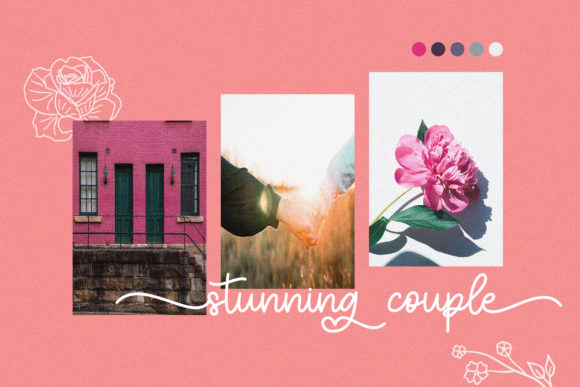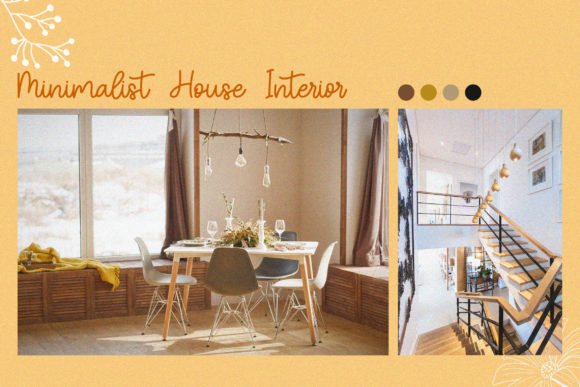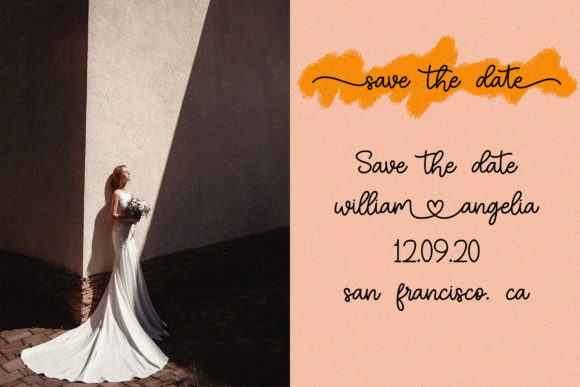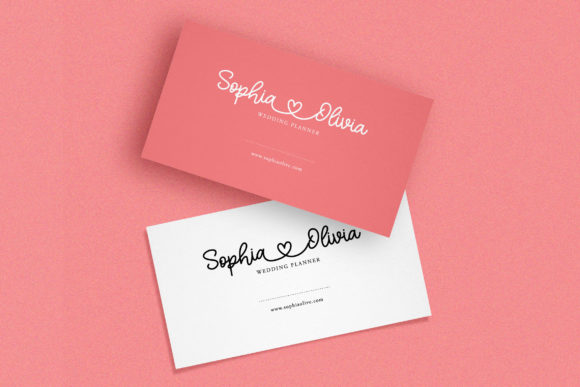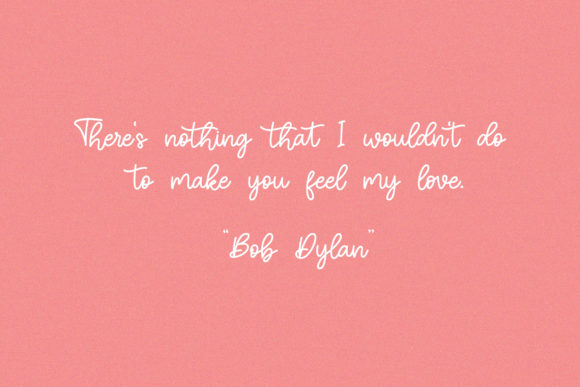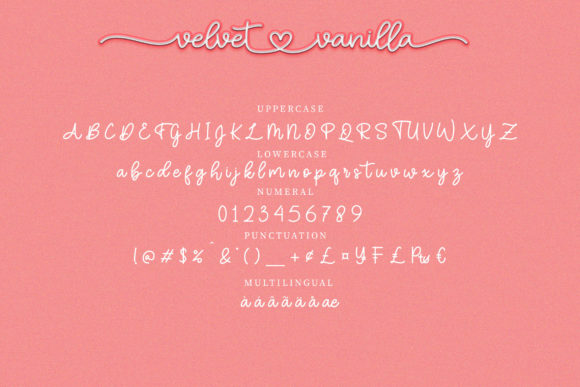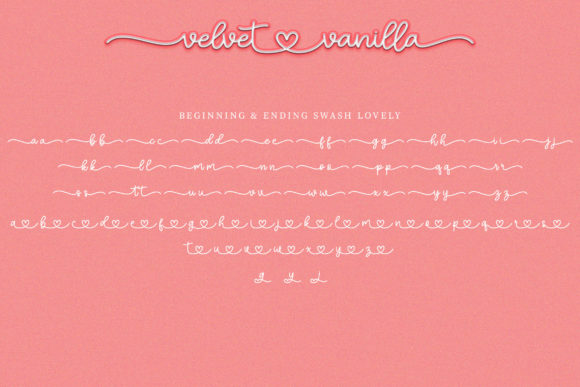
Velvet Vanilla Font
About Velvet Vanilla Font
Velvet Vanilla: A Charming and Elegant Handwritten Delight
Introducing Velvet Vanilla, a font that exudes charm and elegance with every stroke. Its unique and delicate style makes it a perfect fit for a myriad of designs, including enchanting wedding invitations, heartfelt thank you cards, inspiring quotes, captivating greeting cards, professional logos, and any project that seeks a touch of handwritten allure. Velvet Vanilla adds a touch of sophistication to every design, leaving a lasting impression on all who behold it. Embrace its charming beauty and notice how it elevates your creations to new heights of elegance and allure.
The allure of Velvet Vanilla lies in its charming and elegant nature. Each letter is meticulously crafted, maintaining a delightful balance of grace and sophistication.
Designing with Velvet Vanilla is a delightful experience. Its handwritten strokes and delicate characters add a sense of authenticity and allure to your creations, making them truly special and captivating.
Velvet Vanilla shines in every setting. Whether you’re designing for joyous weddings or conveying heartfelt sentiments, this font effortlessly adapts to suit your creative vision.
Unleash your creativity with Velvet Vanilla. Its smooth lines and varying baseline allow you to create designs that exude elegance, adding a touch of refinement to every project.
Gorgeous designs come to life with Velvet Vanilla’s charming and elegant touch. Whether you’re crafting wedding invitations or designing inspiring quotes, this font infuses a sense of captivating allure that mesmerizes your audience.
In conclusion, Velvet Vanilla is more than just a font; it’s a charming and elegant masterpiece that invites you to embrace the allure of handwritten sophistication. Its graceful strokes and delightful swashes elevate your designs, leaving a lasting impact on all who see them. Add it to your creative projects and witness how Velvet Vanilla transforms them into captivating works of art. Embrace the beauty and elegance of Velvet Vanilla, and let it guide you to create designs that inspire and evoke emotions. With Velvet Vanilla as your trusted companion, your creations will stand out with sophistication and allure, leaving an everlasting impression. Embrace the enchanting spirit of Velvet Vanilla, and let it bring your creative vision to life with its captivating charm. For wedding invitations, thank you cards, logos, business cards, or any design in need of a handwritten touch, Velvet Vanilla is the font that delivers elegance beyond compare.